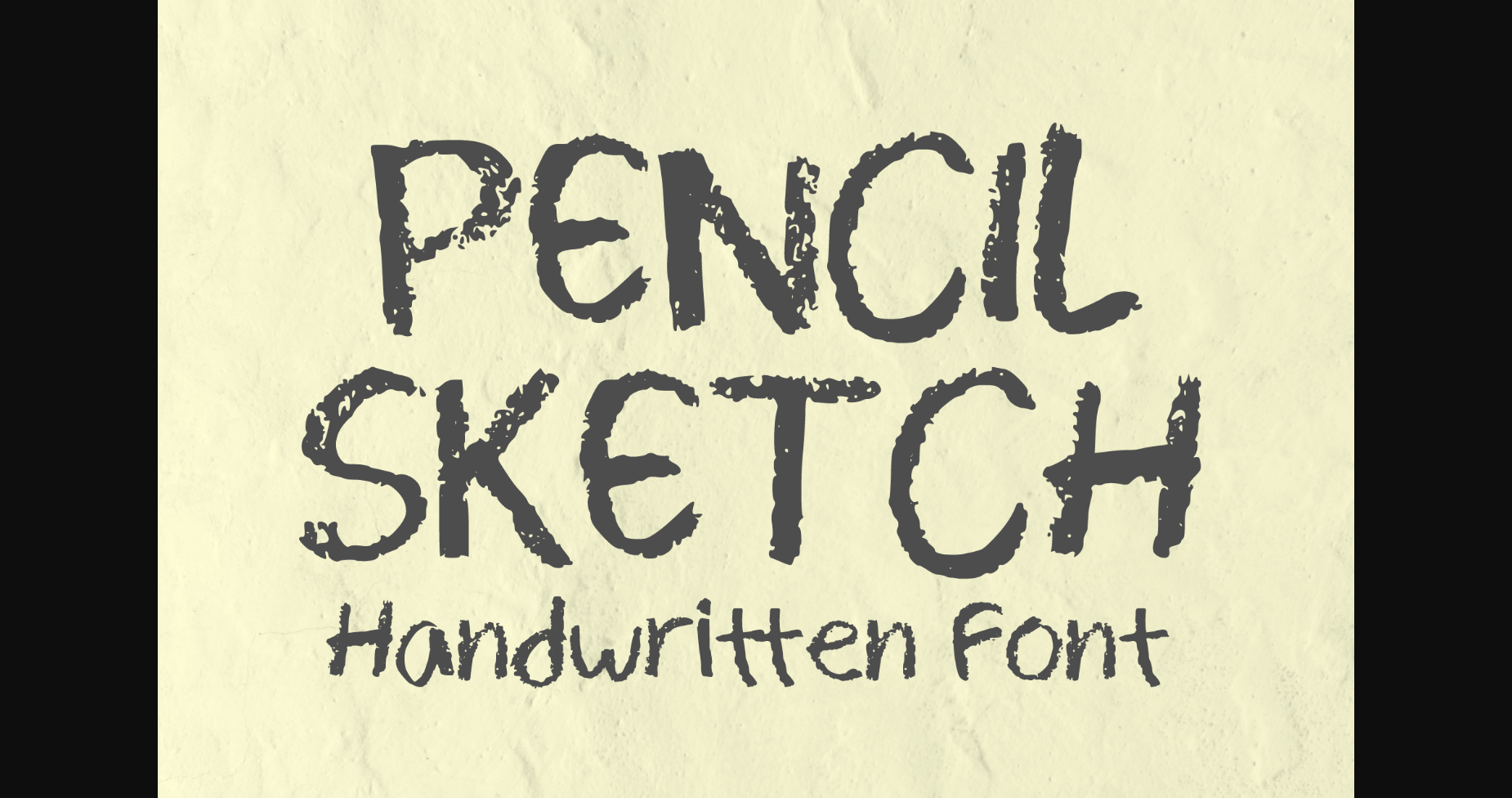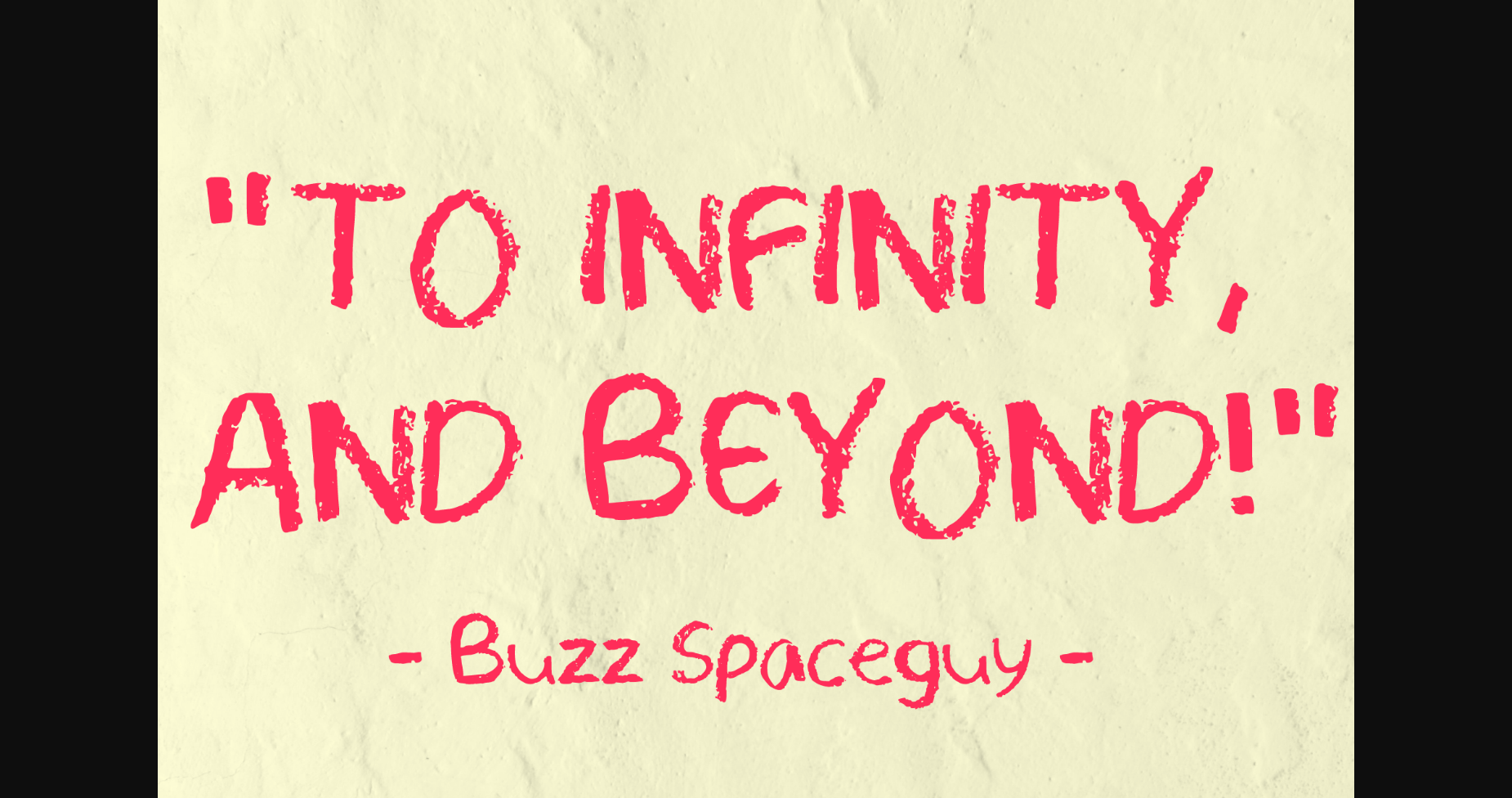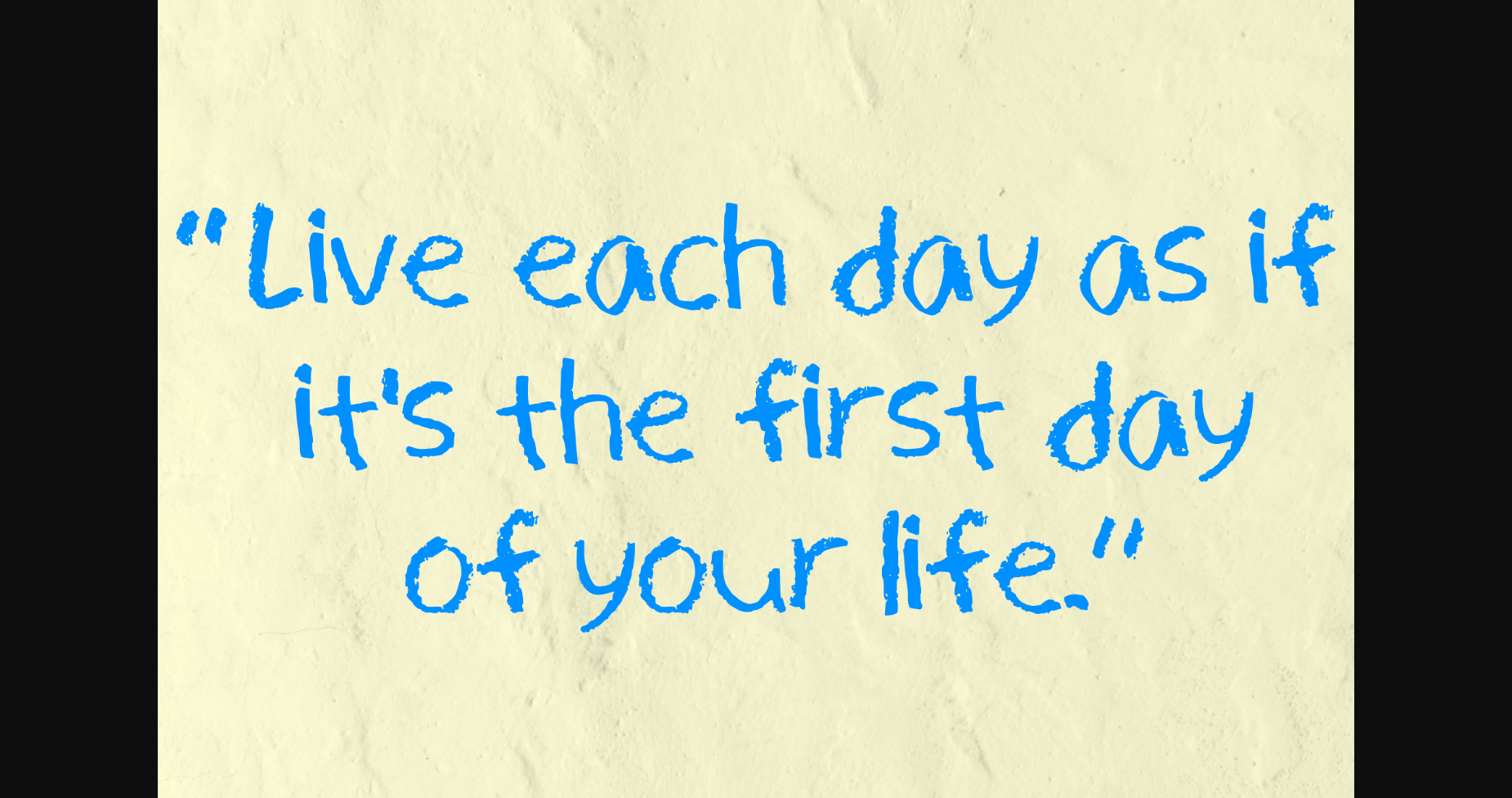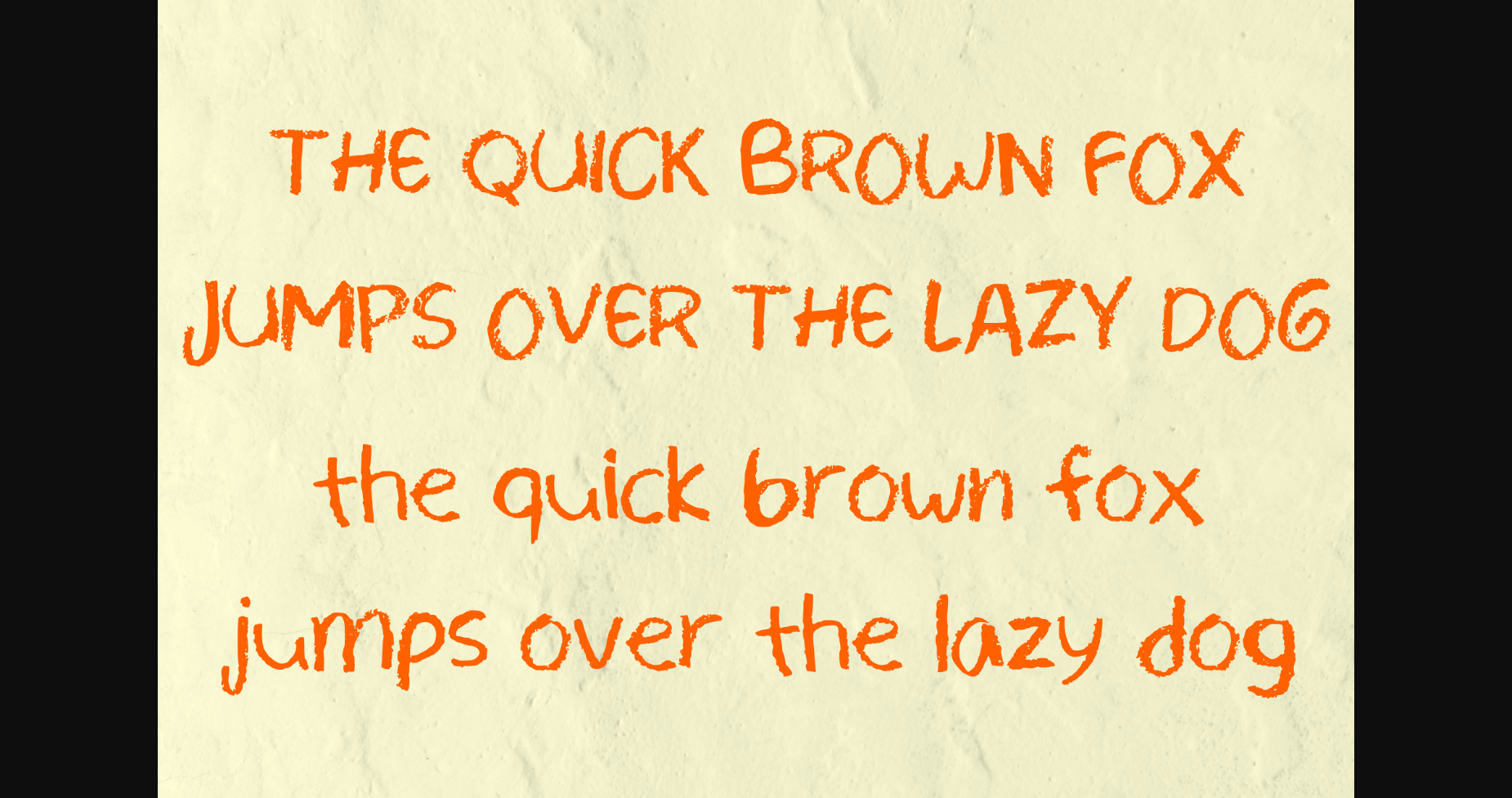
About Pencil Sketch Font
Pencil Sketch is a perfect handwritten sans serif font and very versatile for everything you need! You can use it for anything ranging from t-shirts, kids’ magazines, social media posts, greeting cards, stickers, posters, kid’s book design or anything that needs a casual touch. Try it to create cool designs and feel the good vibes with it!